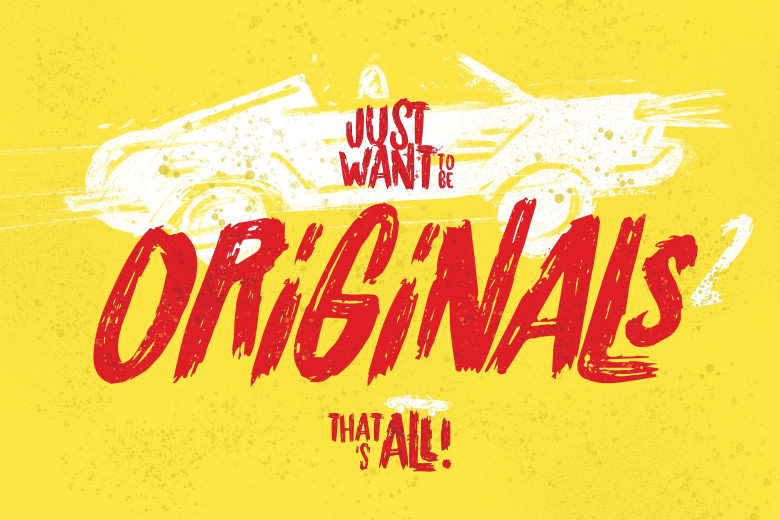
Originals 2 Typeface
Introducing Originals 2 Font! Originals 2 designed and shared by LeoSupply.co. Originals 2 Typeface is a handdrawn playful display font. Including all US glyphs and it comes in regular, slant and bllured version. The font can be used for many purposes but looks great when put on signs, shirts or cards. Also, it works perfect on fresh summer theme designs or comic style designs.